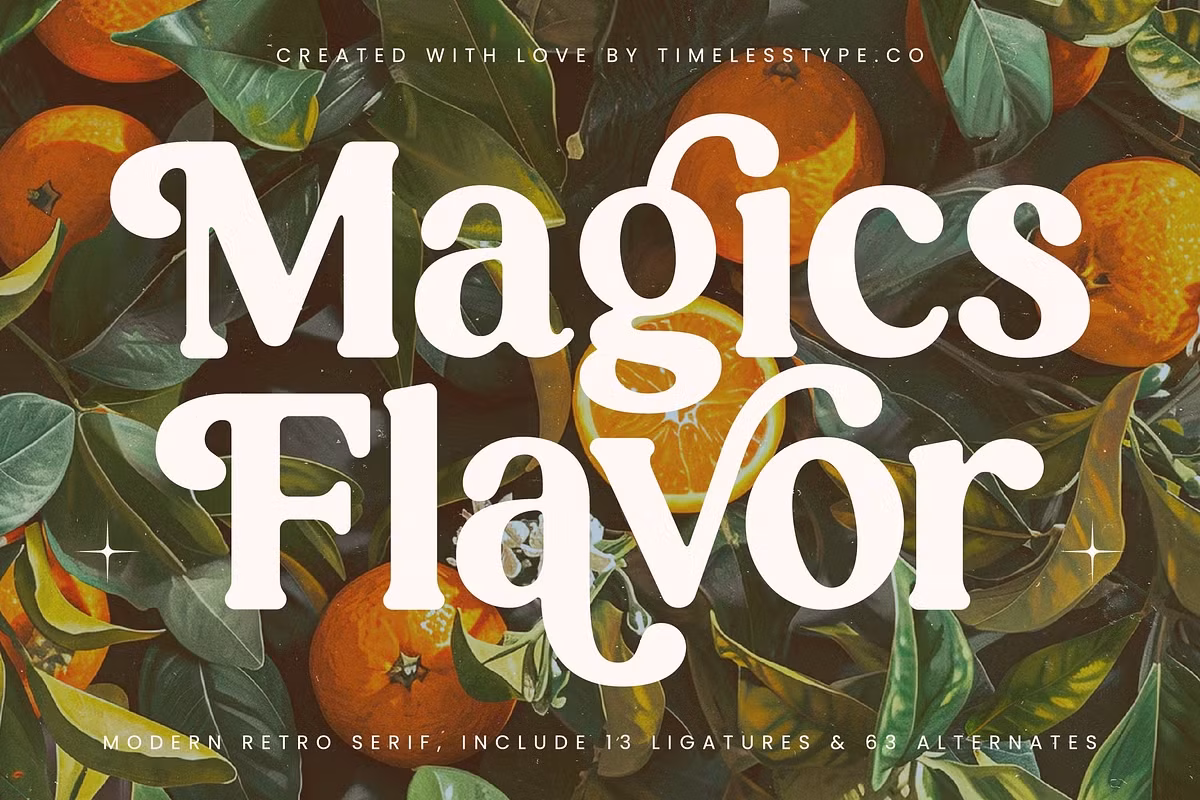
You must purchase this font for commercial use. However, you can download Magics Flavor Modern Retro Serif Font Free Download for testing purposes. Magics Flavor is a modern retro serif font that combines the charm of vintage design with a contemporary twist. Perfect for logos, branding, posters, social media graphics, and more, this font gives your projects a bold, nostalgic flair while remaining fresh and stylish.
With its geometric shapes, strong serifs, and balanced letterforms, Magics Flavor is ideal for designs that want to make a statement with retro vibes. Whether you're working on a retro-inspired brand, designing an event poster, or creating a dynamic website, this font adds character and uniqueness to your typography.